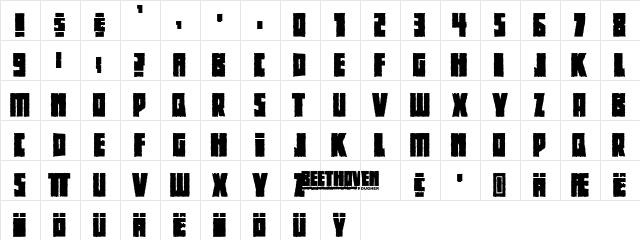
BeethovenRougher Regular
Design Context for BeethovenRougher Typeface
BeethovenRougher trades polish for personality, using distressed and eroded forms to bring grit and attitude to creative work.
Suited to punk-influenced zines, underground music branding, streetwear, and raw, anti-corporate design.
Pro Tip: Pair BeethovenRougher with intentionally raw or lo-fi design elements. Fighting against it with overly polished surroundings will undermine its personality.